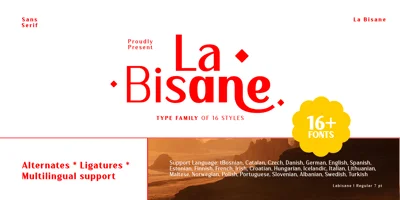
La Bisane Font
La Bisane Font is perfect for French patisserie branding, European bistro signage, luxury Parisian boutiques, elegant wine labels, sophisticated café menus, French cultural exhibitions, romantic travel campaigns, artisan bakery identity, and chic lifestyle social media content. This refined typeface brings French sophistication and European elegance to both digital and print design applications.
La Bisane Font is exciting because it captures the timeless elegance and sophisticated charm of French design tradition, making it an exceptional choice for designers who want to convey European refinement with authentic French appeal. Its graceful letterforms and sophisticated character provide the perfect combination of French elegance and contemporary functionality, ensuring your projects communicate cultural refinement, European sophistication, and French excellence that resonates with audiences seeking genuine European experiences and French lifestyle authenticity.
The La Bisane Font family includes elegant weight variations and French elements, featuring light, regular, and bold weights with complementary italic styles, sophisticated ligatures, and European decorative flourishes. Each style maintains consistent French aesthetics while offering flexibility for different European applications, allowing designers to create refined visual systems that reflect French values and European sophistication.
Whether you're designing for French brands, European hospitality businesses, or cultural projects, La Bisane Font delivers authentic French appeal and European sophistication that connects with audiences seeking genuine European experiences and French cultural elegance. This premium typeface offers designers the French refinement and European charm needed to create designs that communicate French culture, European sophistication, and continental excellence effectively. The font's elegant character makes it perfect for French branding, European campaigns, and cultural applications where authentic French credibility is essential. Download La Bisane Font today and sophisticate your creative projects with genuine French elegance and European typography excellence that defines continental design standards.